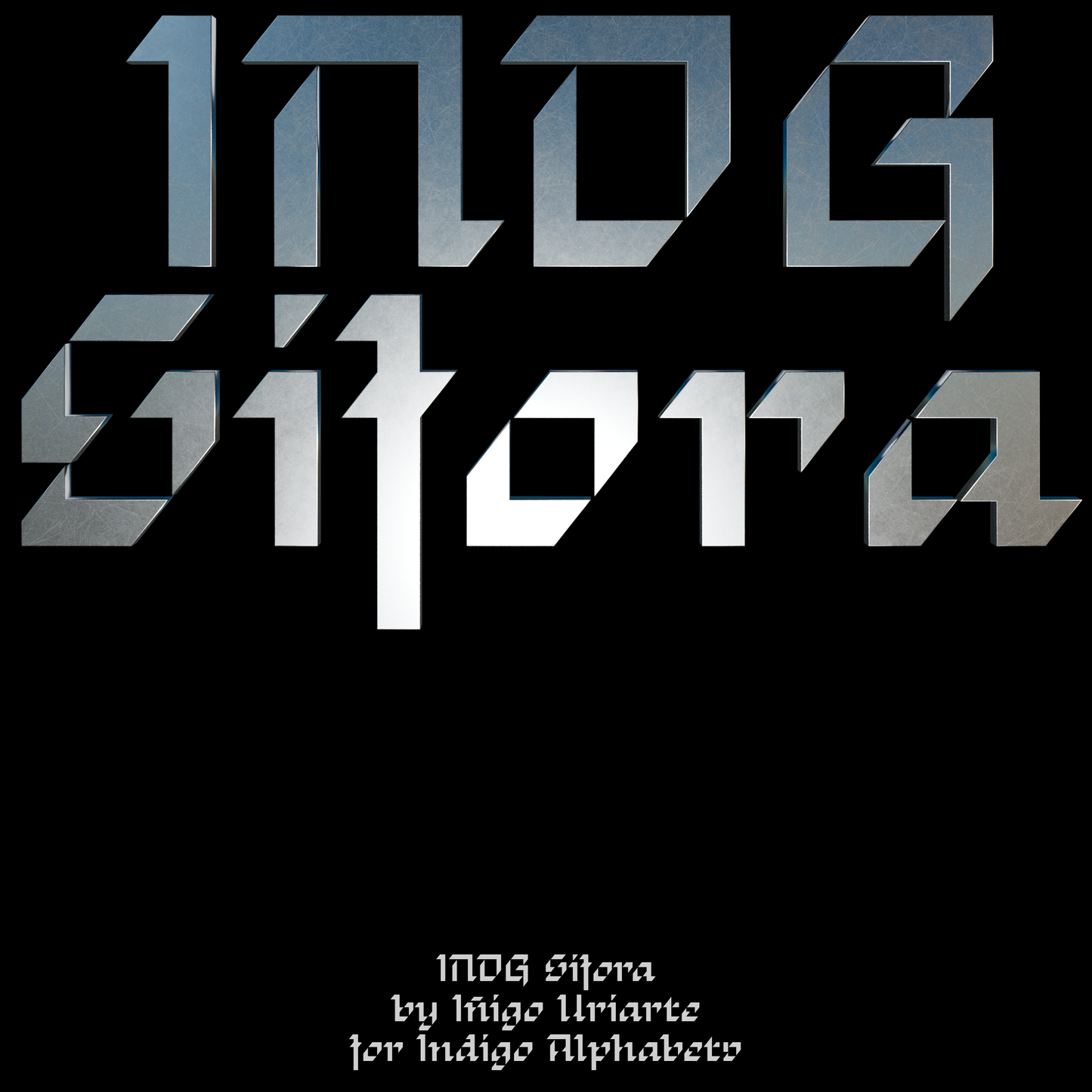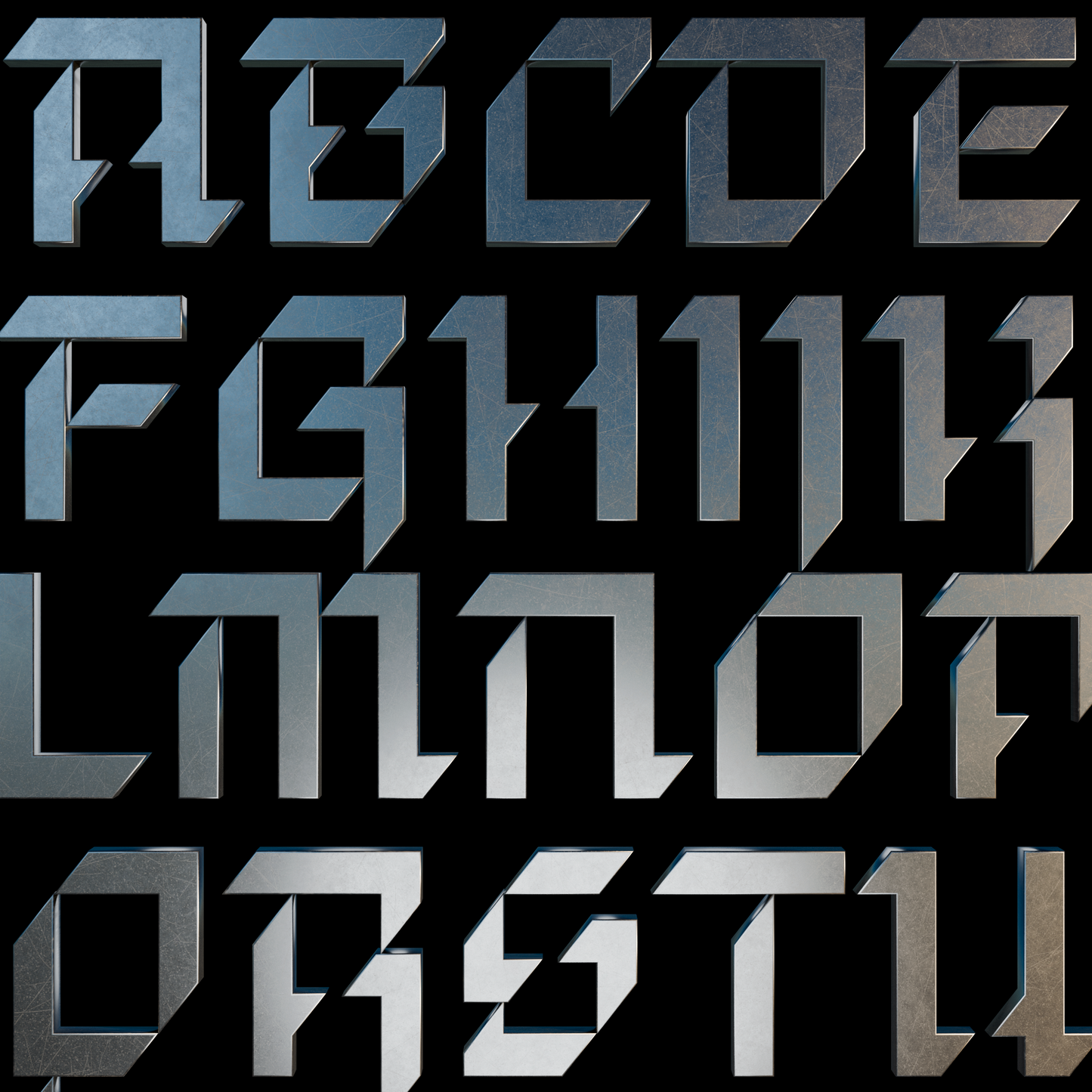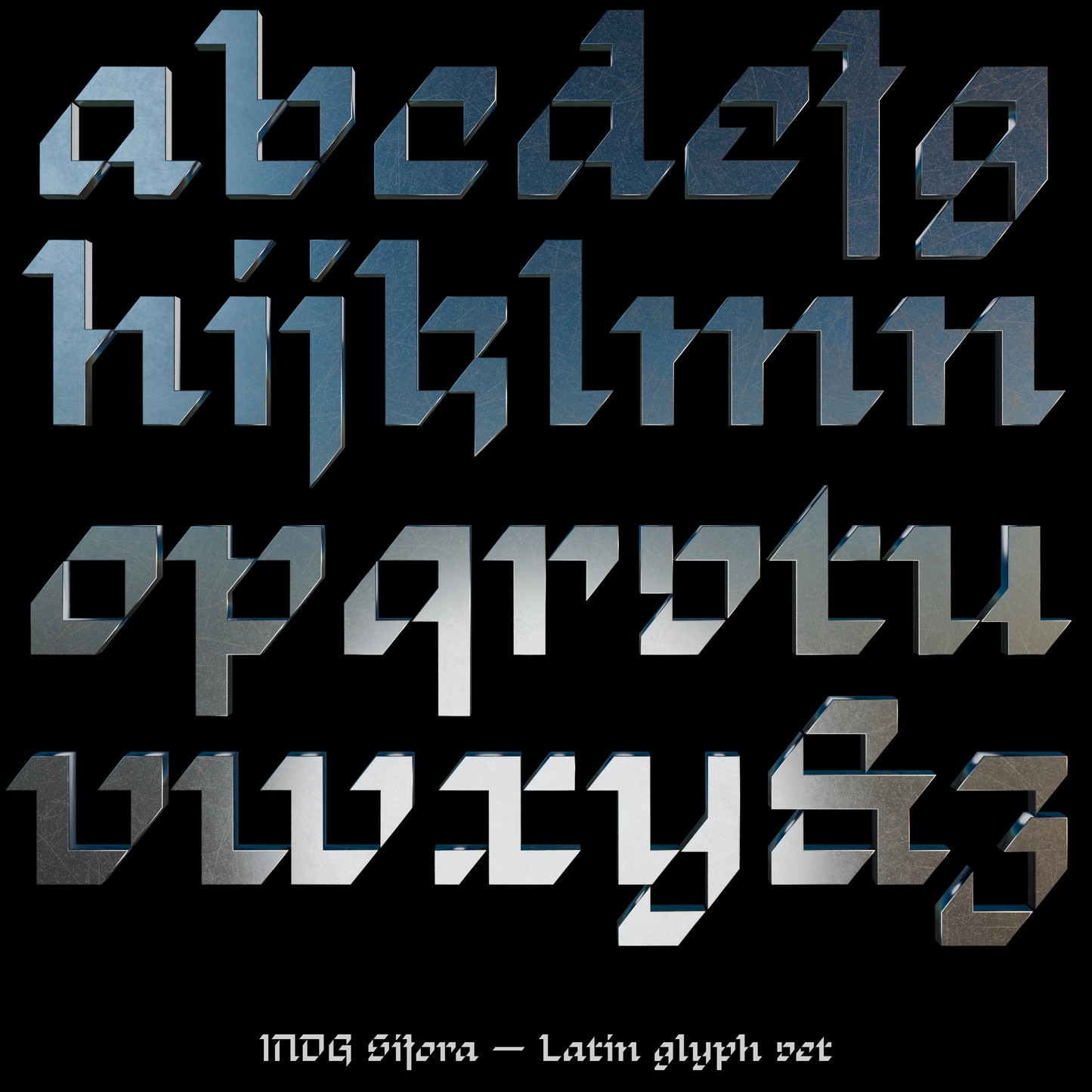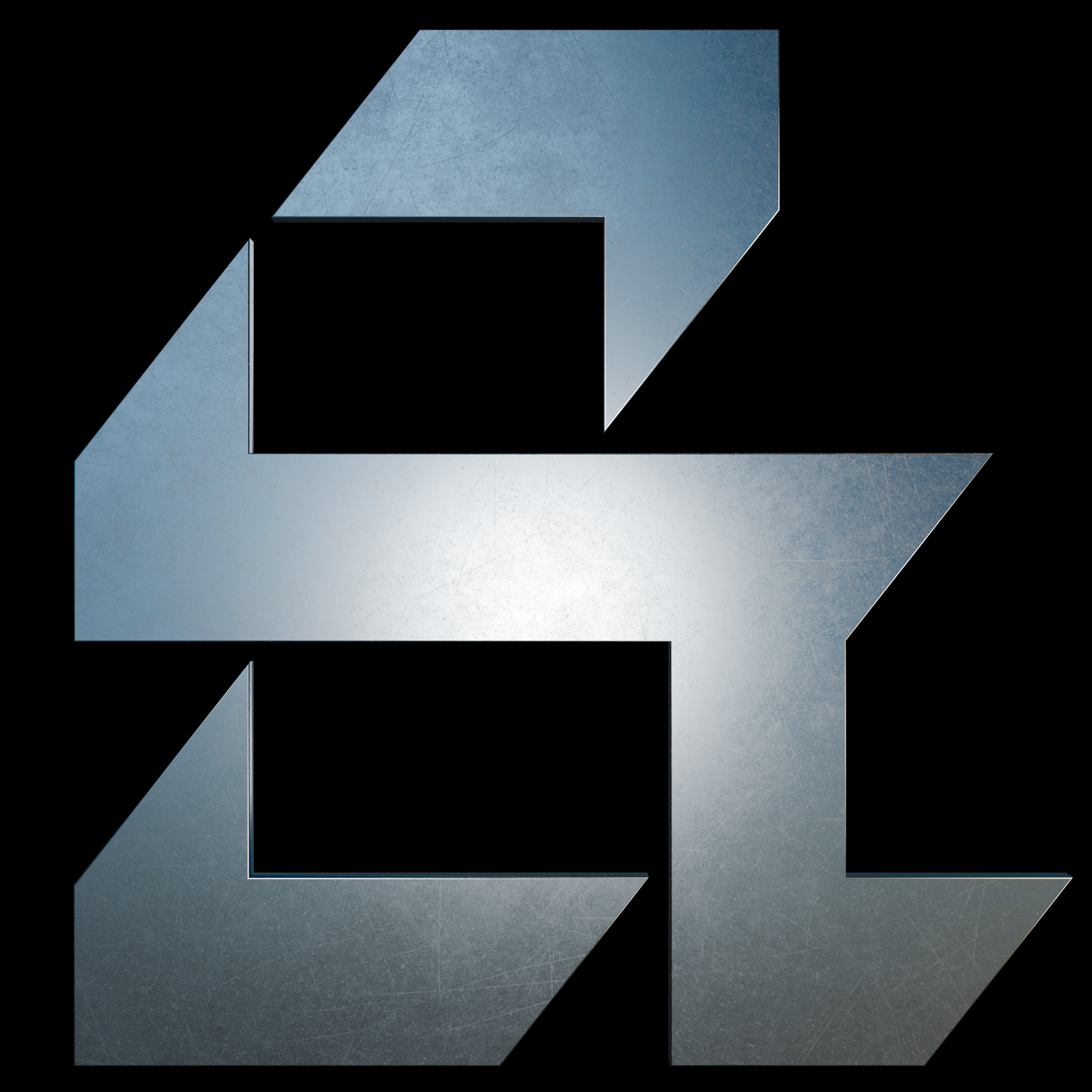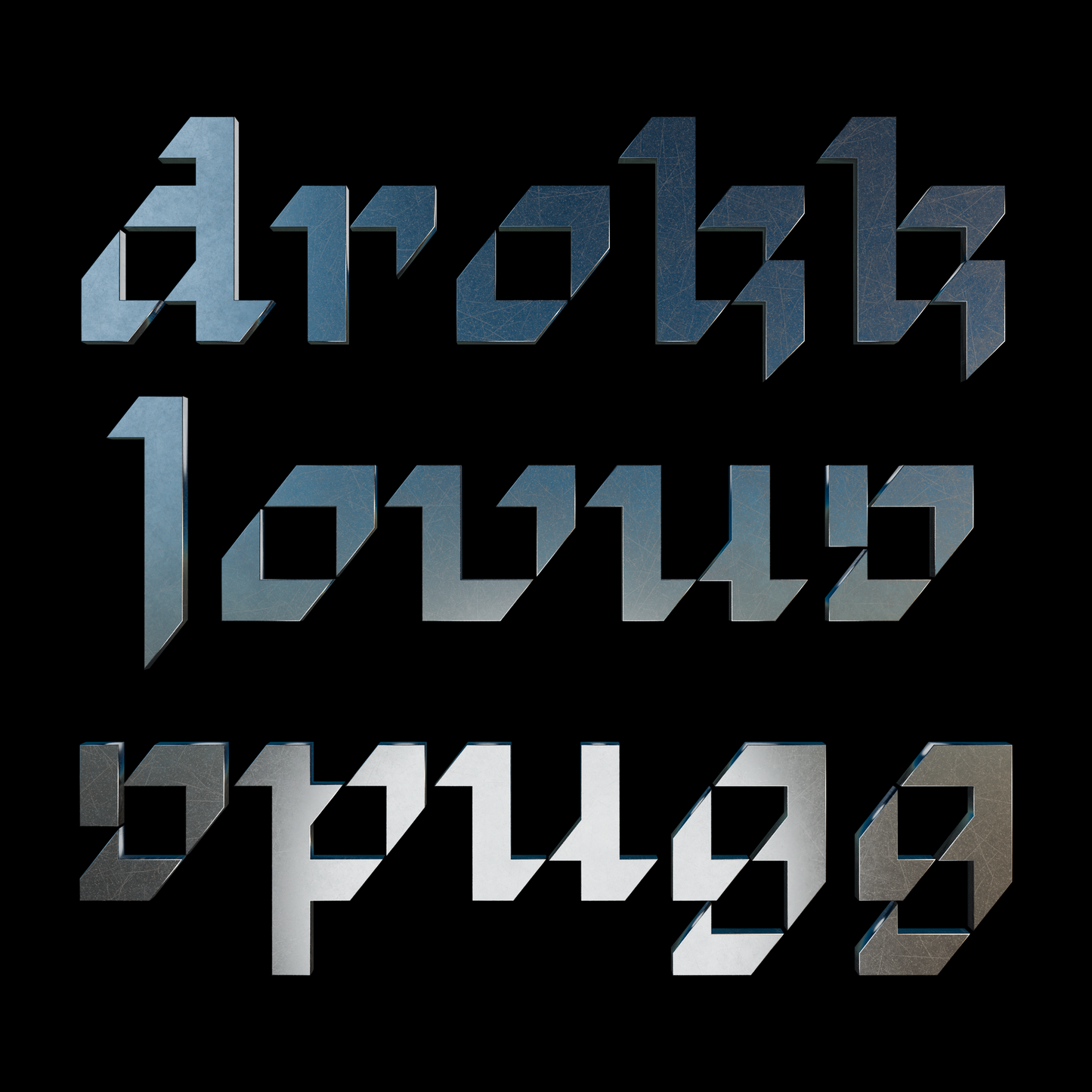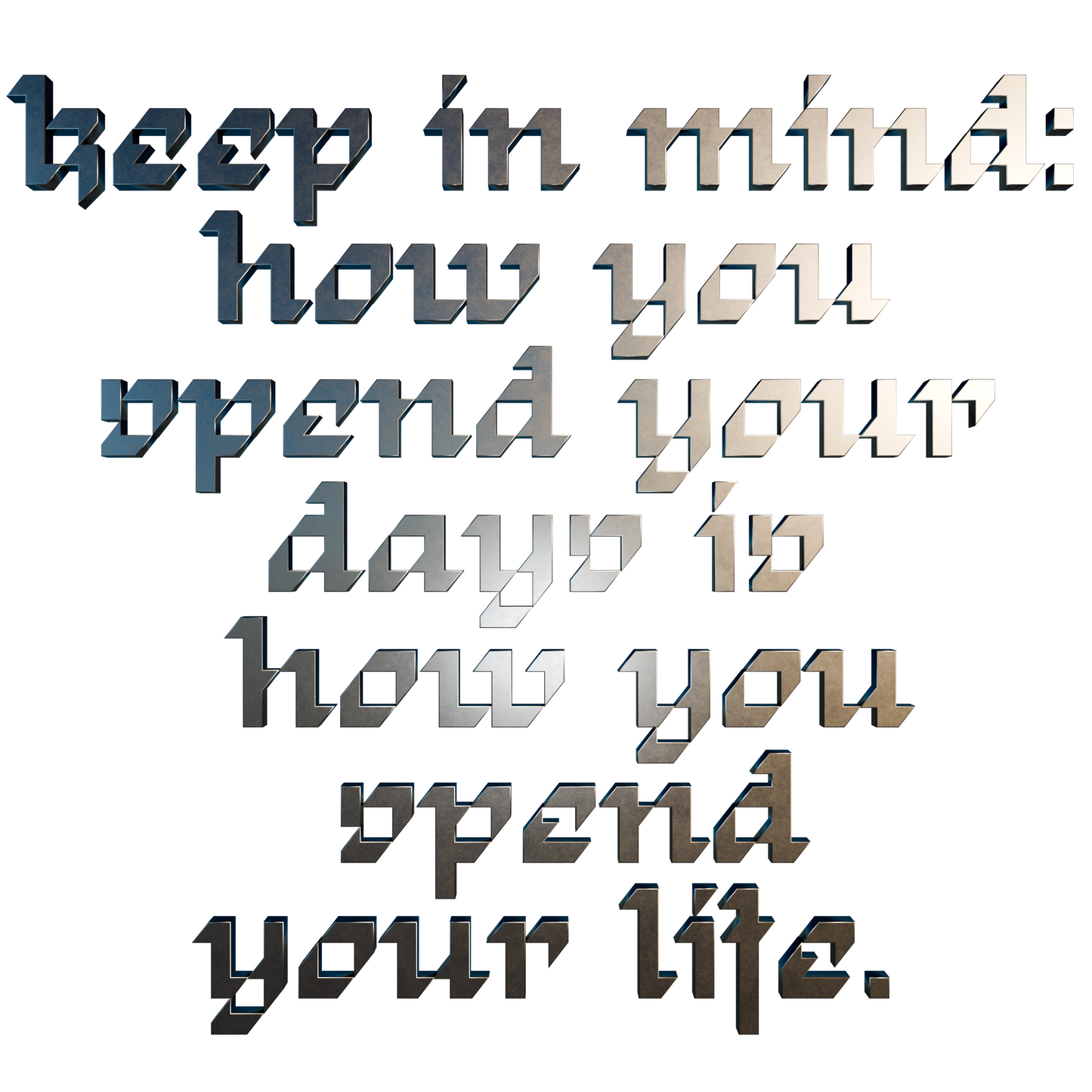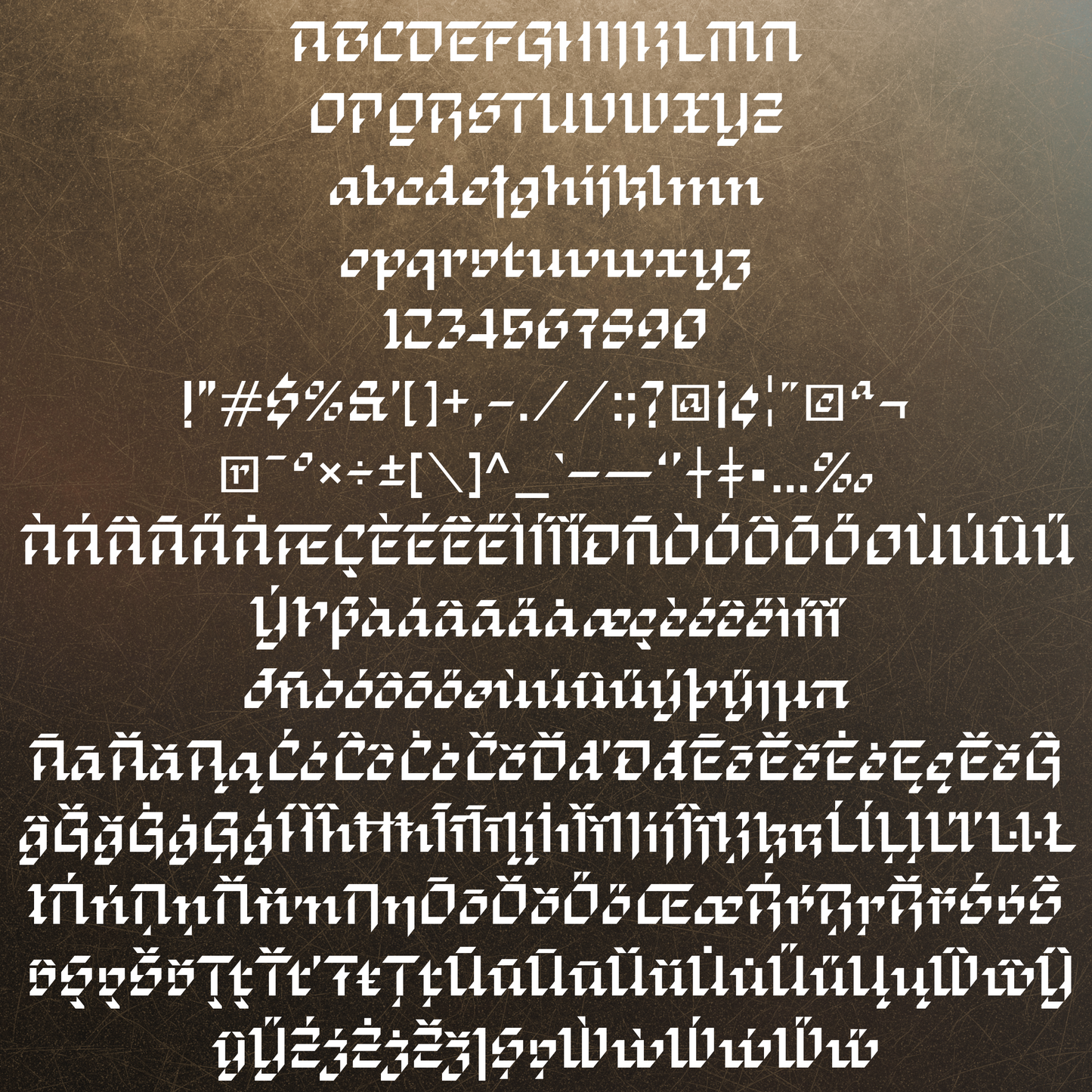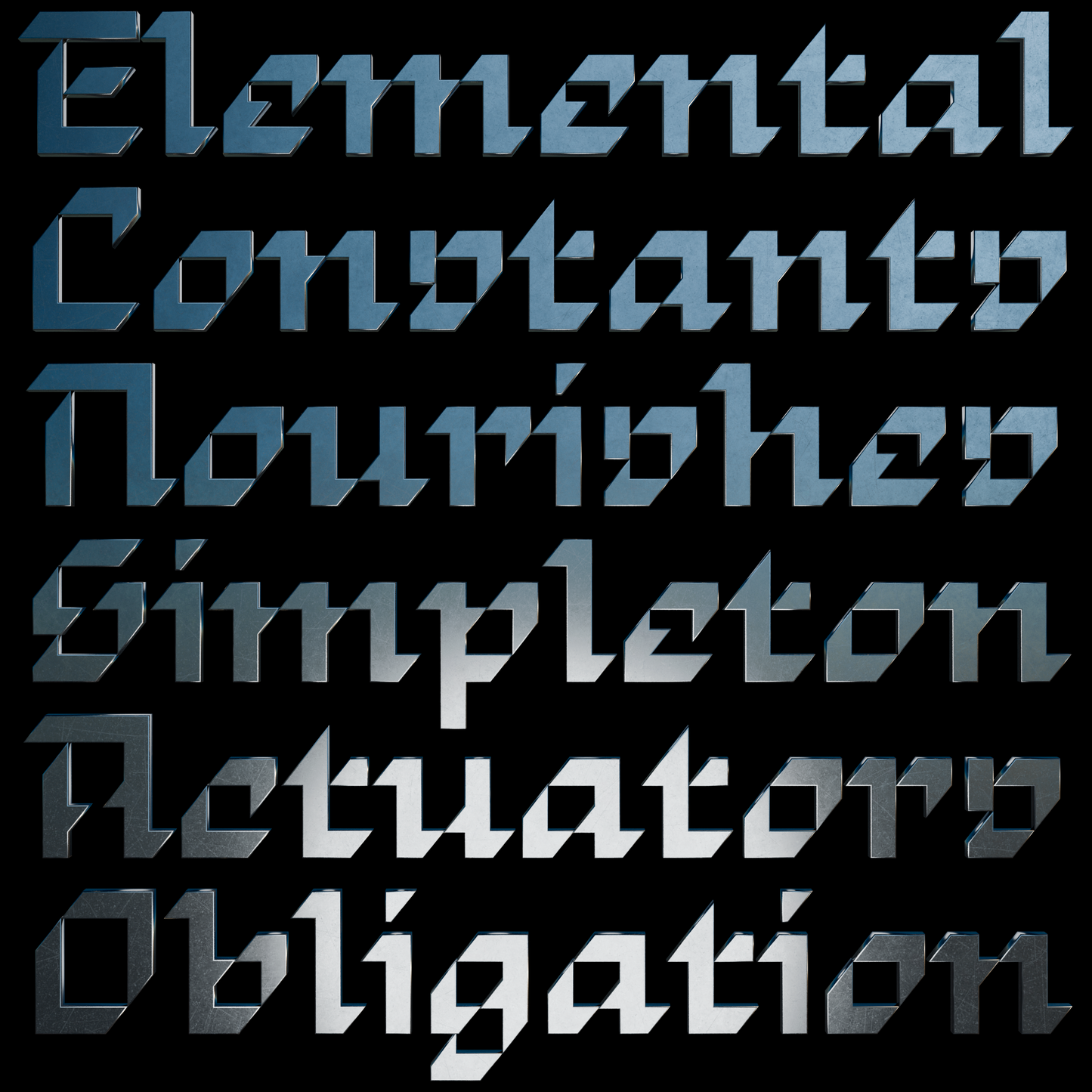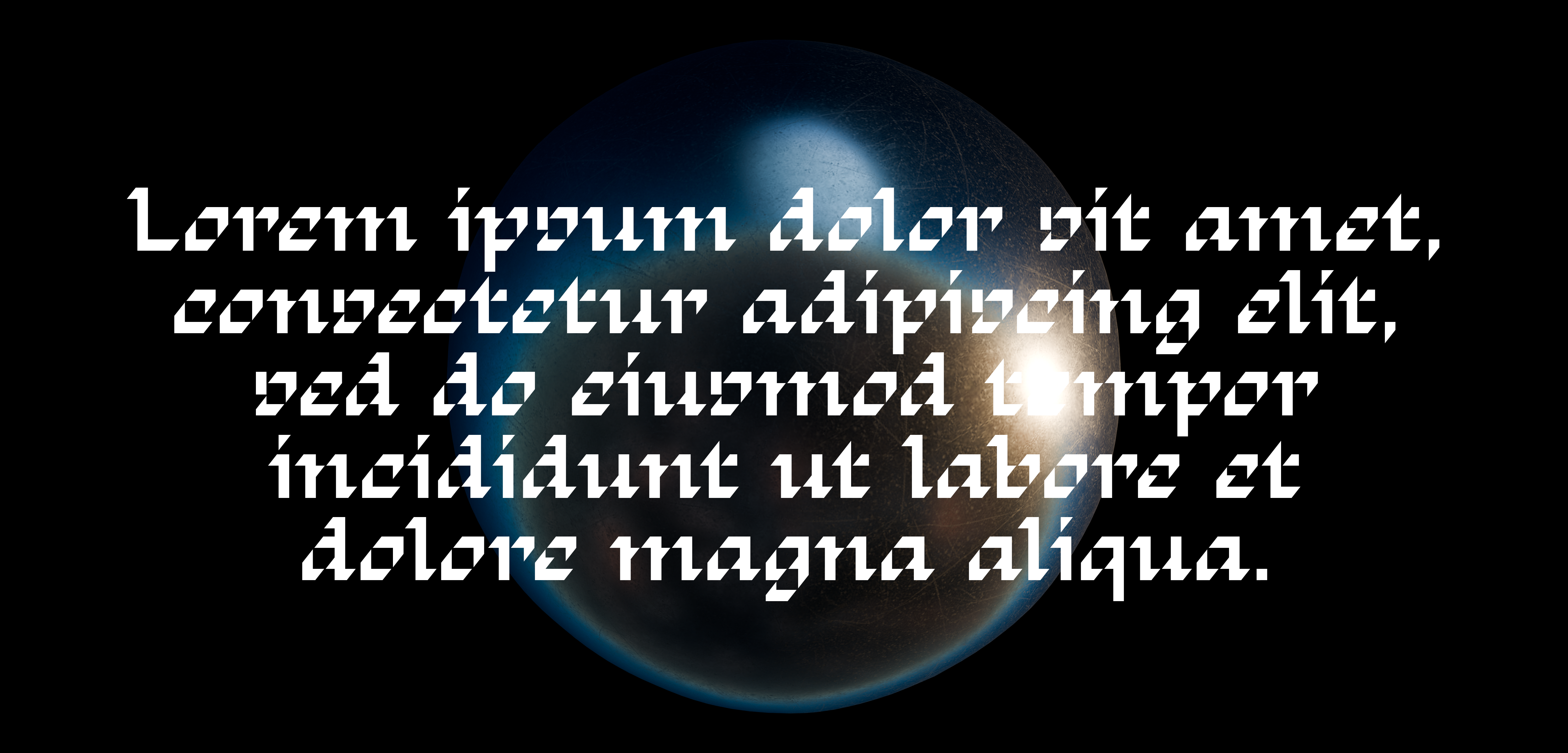
INDG Sifora
Iñigo Uriarte
Enter INDG Sifora, the font that emerges from this fractured reality. It’s the perfect fit for your next rave flyer, sports graphics, or a scene from a science fiction world in which language is both weapon and code. You decide the boundary, this typeface thrives in dystopian futures.